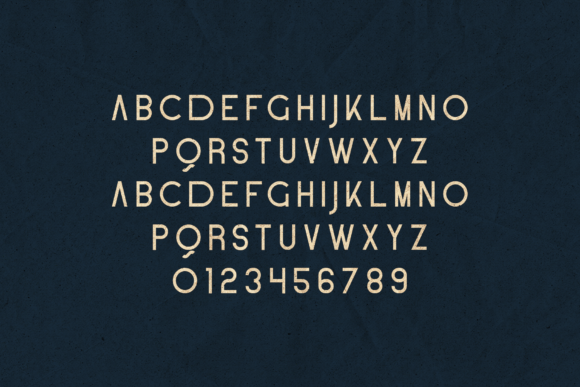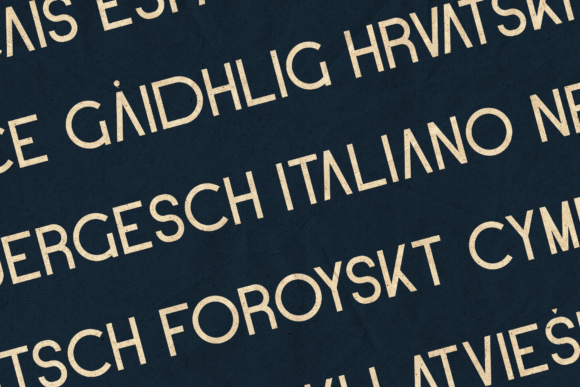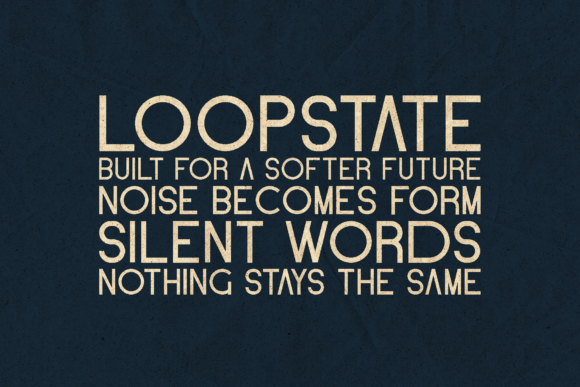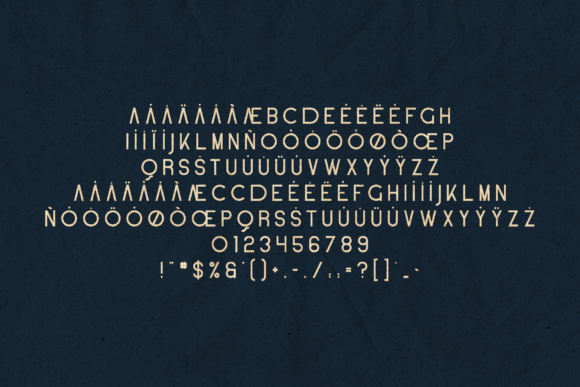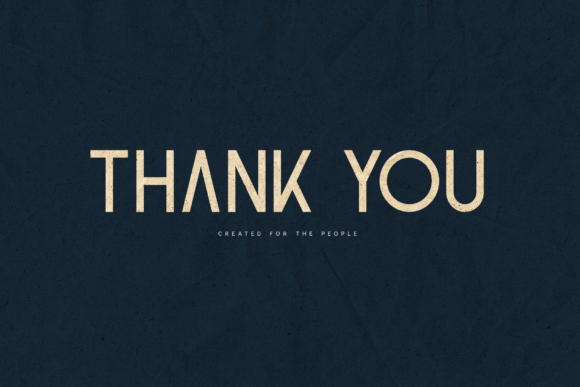
Introducing Blue Gold Font: The Perfect Blend of Modernity and Texture
In the world of typography, a good font can make all the difference in the success of a design project. For designers and crafters looking for a modern sans serif font that exudes confidence and approachability, Blue Gold Font is an excellent choice. This stunning font combines a clean geometric structure with a subtle textured finish, making it perfect for a wide range of applications, from branding and posters to editorial layouts and digital projects.
The Unique Characteristics of Blue Gold Font
Blue Gold Font boasts a unique blend of modernity and texture, setting it apart from other sans serif fonts. Its clean geometric structure provides a sense of clarity and strength, while its grainy, organic texture adds a tactile, human quality. This subtle texture gives the font a warm and contemporary feel, making it perfect for designs that require a confident but approachable tone.
Blue Gold Font is an incredibly versatile font that can be used for a variety of design projects. Its bold and modern look makes it perfect for:
- Branding: Create a lasting impression with Blue Gold Font, ideal for logos, business cards, and brand guidelines.
- Posters: Grab attention with bold headlines and eye-catching visuals.
- Headlines: Add a touch of modernity to your headlines, perfect for newspapers, magazines, and online publications.
- Packaging: Stand out on store shelves with Blue Gold Font, suitable for product labels, packaging, and point-of-purchase displays.
- Editorial Layouts: Elevate your editorial designs with a font that exudes sophistication and style.
- Album Covers: Create stunning album covers that showcase the artist’s personality and style.
- Modern Visual Identities: Develop a strong brand identity with Blue Gold Font, perfect for companies, startups, and entrepreneurs.
Exceptional Performance at Large Sizes
One of the standout features of Blue Gold Font is its exceptional performance at large sizes. When used for billboards, signage, or large-scale digital displays, the font’s texture and balanced proportions create a strong visual impact that grabs attention. The subtle texture adds a level of depth and tactility, making the font feel more human and approachable.
Bridging the Gap between Modernity and Handcrafted Character
Blue Gold Font successfully bridges the gap between modern sans-serif precision and handcrafted character. Its minimalist construction and softened edges create a unique blend of modernity and approachability. This makes it an excellent choice for designers looking for a font that feels both contemporary and human.
Extensive Features and Support
Blue Gold Font comes with an impressive set of features, including:
- Full Character Set: Includes a comprehensive set of characters, ensuring you have everything you need for your design projects.
- Multilingual Support: Supports a wide range of languages, making it perfect for global creative projects.
- Numerals, Punctuation, and Symbols: Includes a complete set of numerals, punctuation, and symbols, ready for professional use.
Blue Gold Font is an exceptional modern sans serif font that offers a unique blend of texture and modernity. Its versatility, extensive features, and exceptional performance at large sizes make it an excellent choice for designers and crafters. Whether you’re working on branding, posters, editorial layouts, or digital projects, Blue Gold Font is sure to elevate your designs and leave a lasting impression.